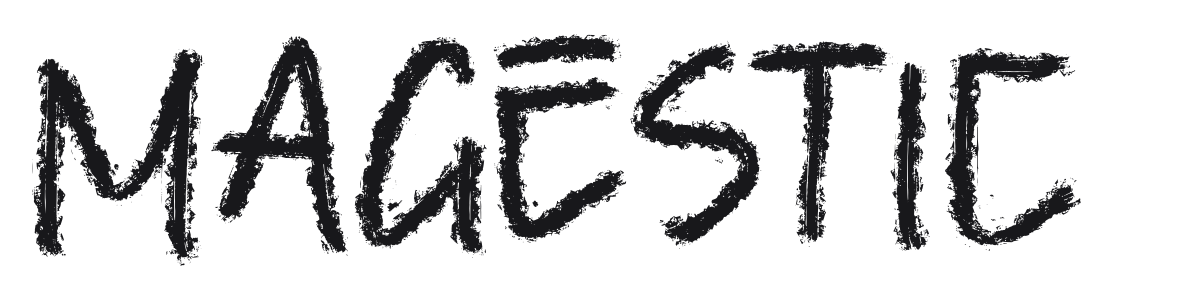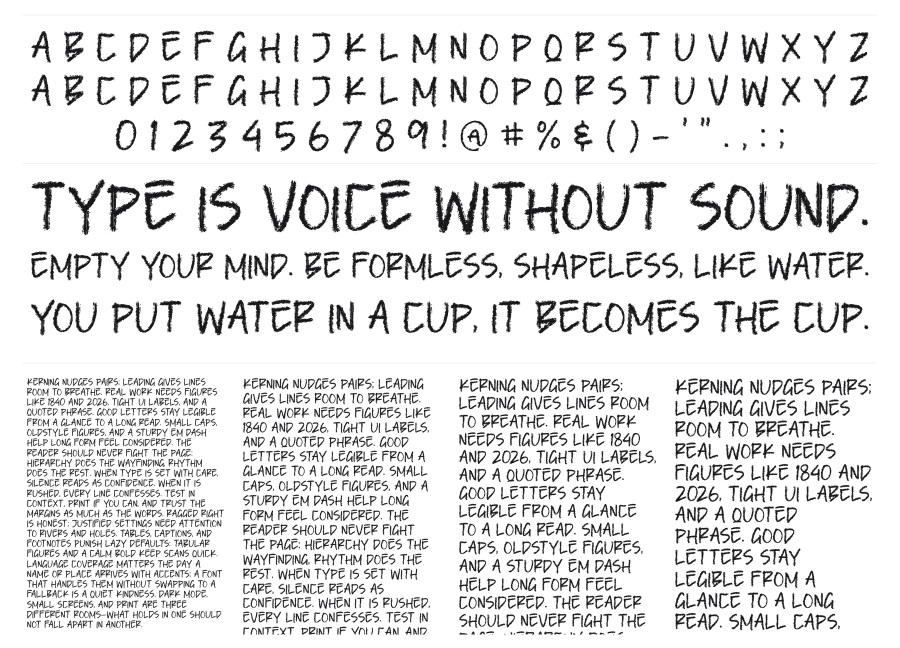
Magestic
Magestic is a rough brush-lettered font with heavy dry-brush texture that makes every stroke look like it was pulled across paper with a worn bristle. The grain and fraying give it an authentically hand-crafted quality that digital fonts rarely achieve. Strong for posters, album artwork, apparel graphics, and any headline that needs raw energy.